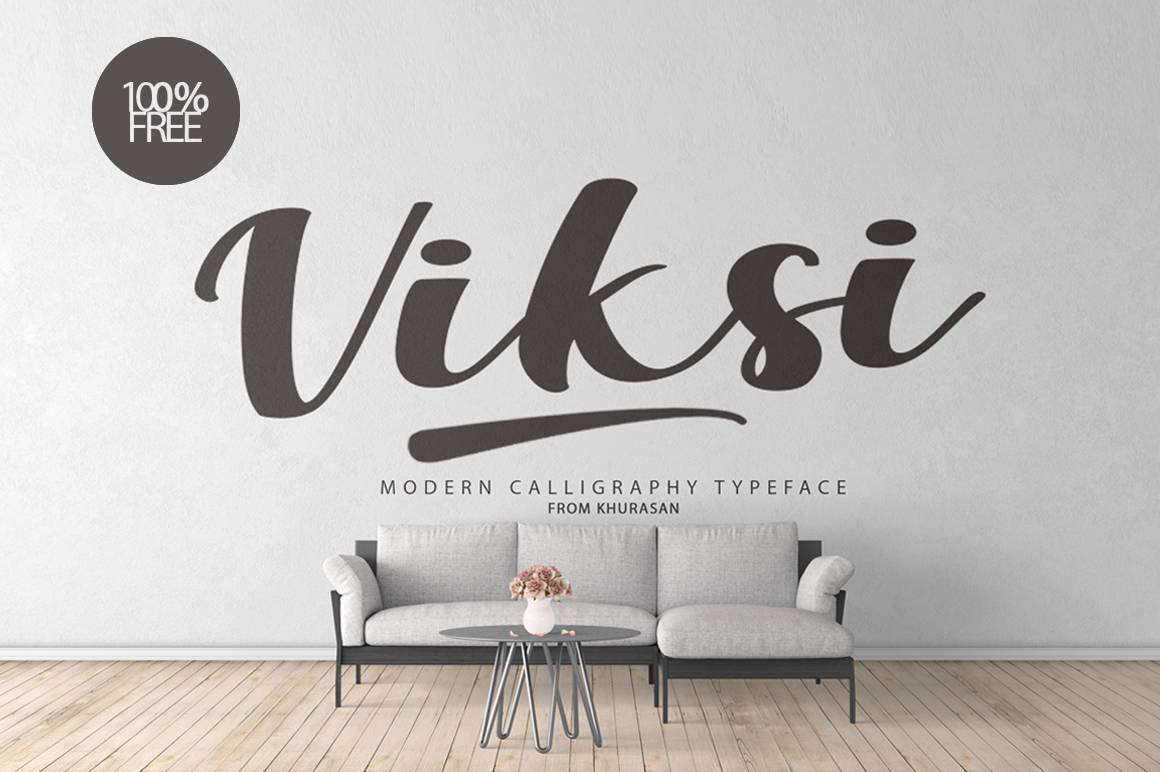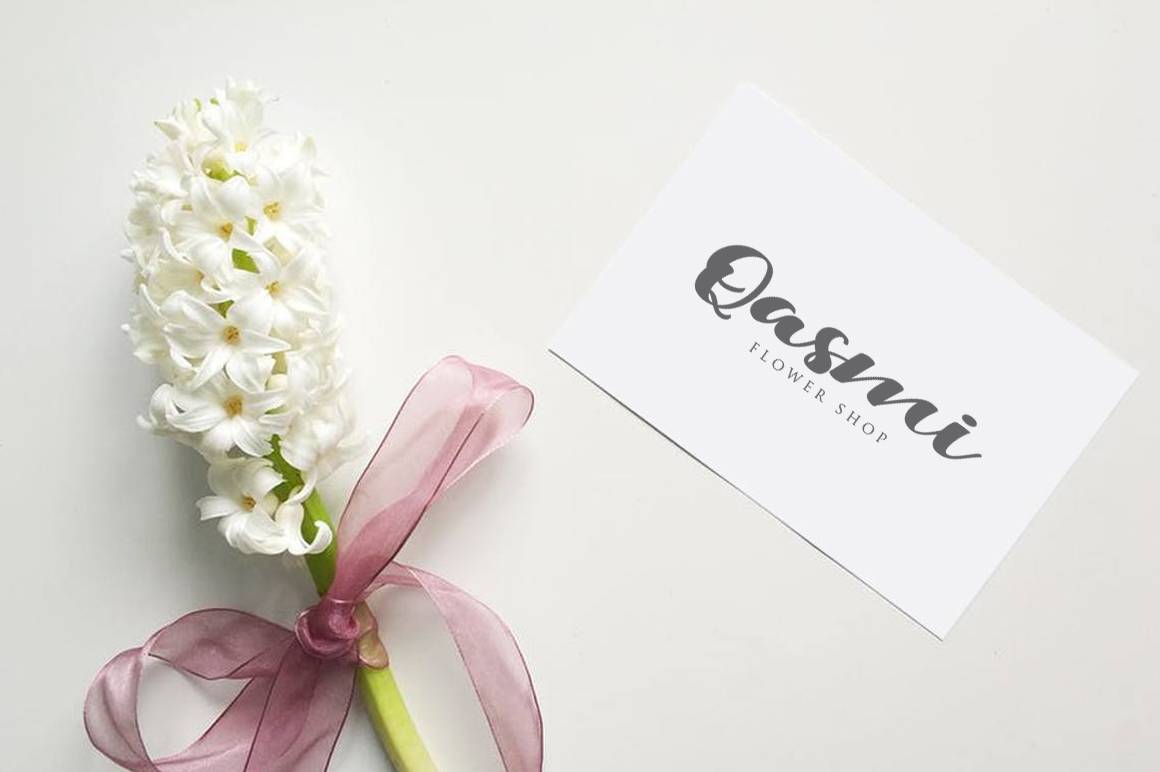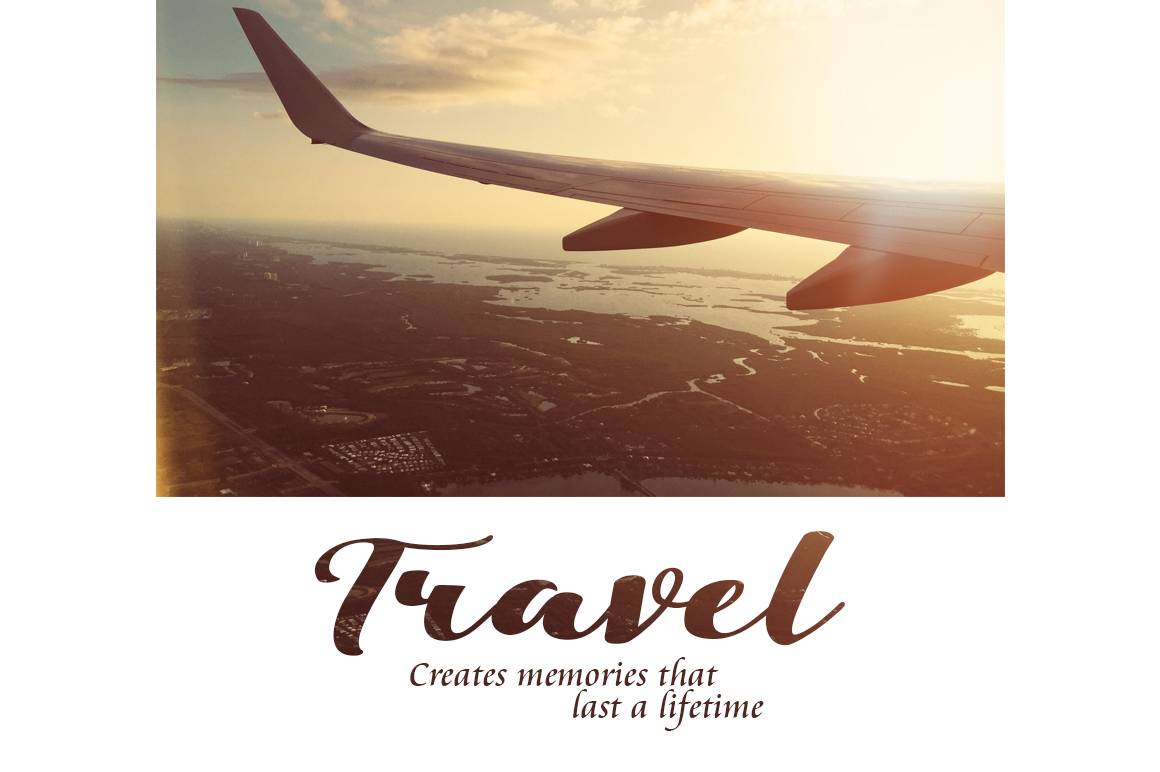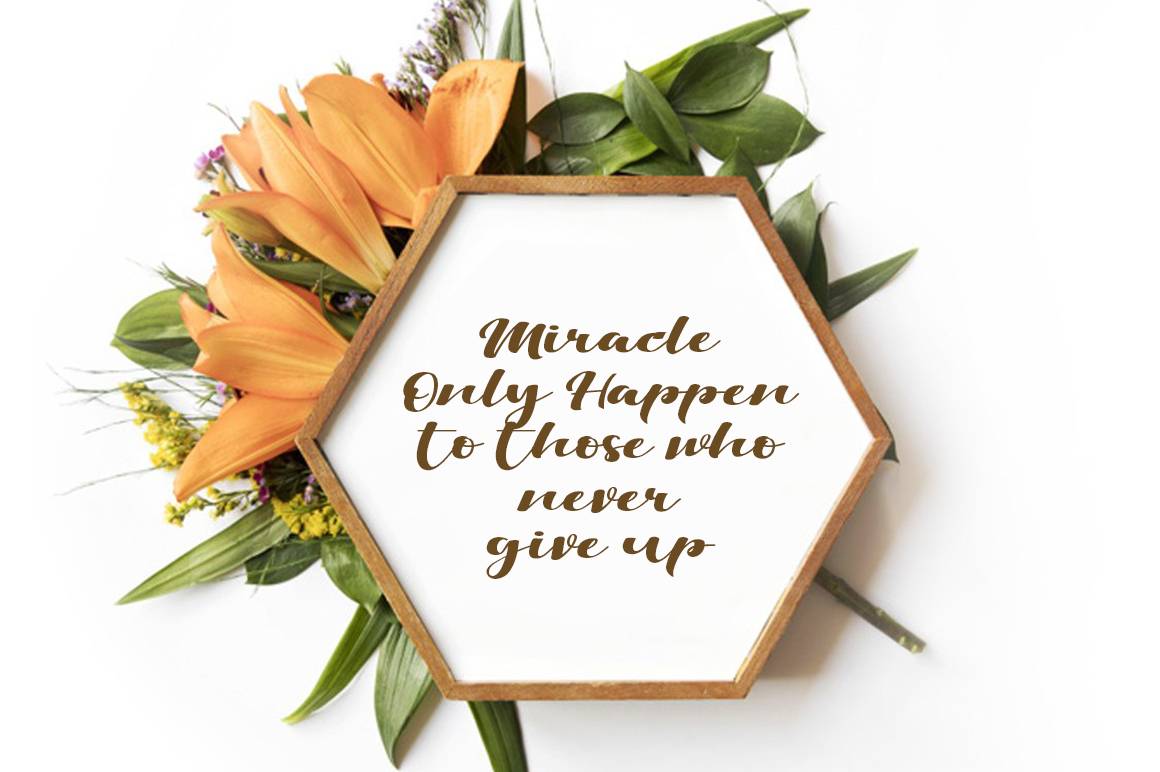
Viksi Script is a bold and elegant script font with smooth, flowing curves and a lively, handwritten feel. Its thick and slightly contrasted strokes create a dynamic and friendly appearance, making it perfect for branding, invitations, and headlines that seek a stylish yet approachable touch. This font works well in designs that require a personal, creative flair, such as fashion, beauty, and lifestyle projects.
Viksi Script
About Viksi Script
| Font family | Viksi Script |